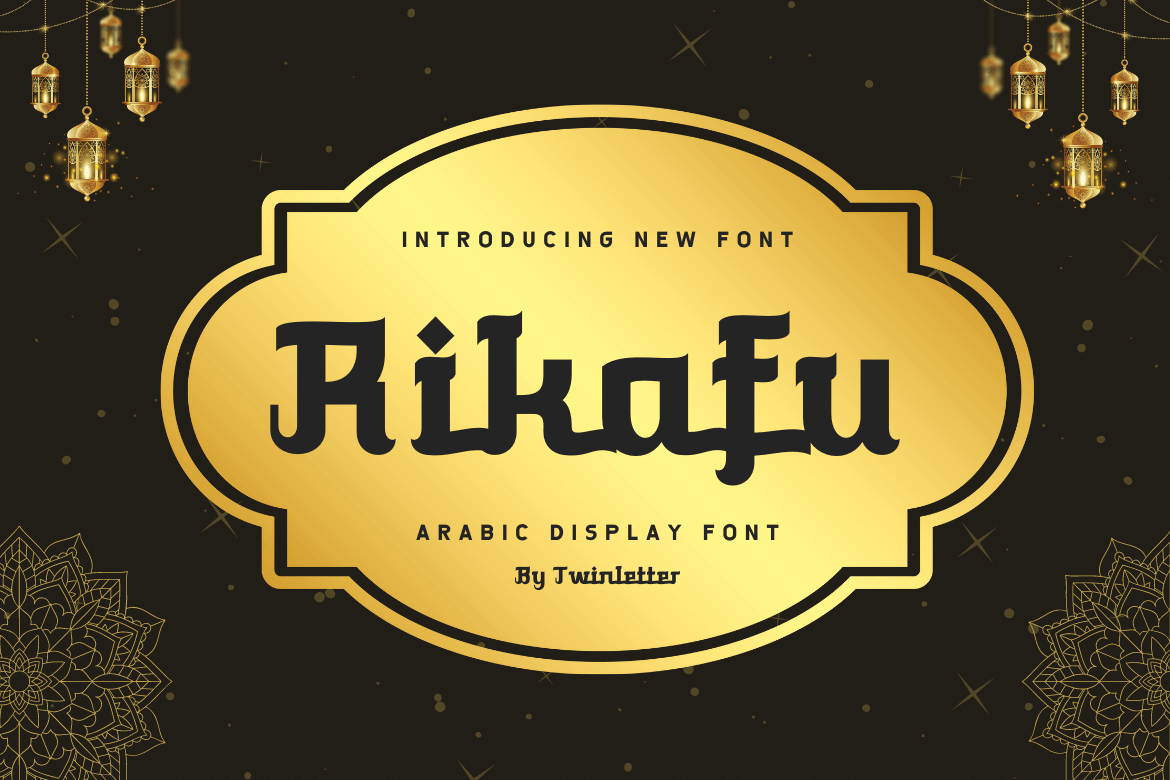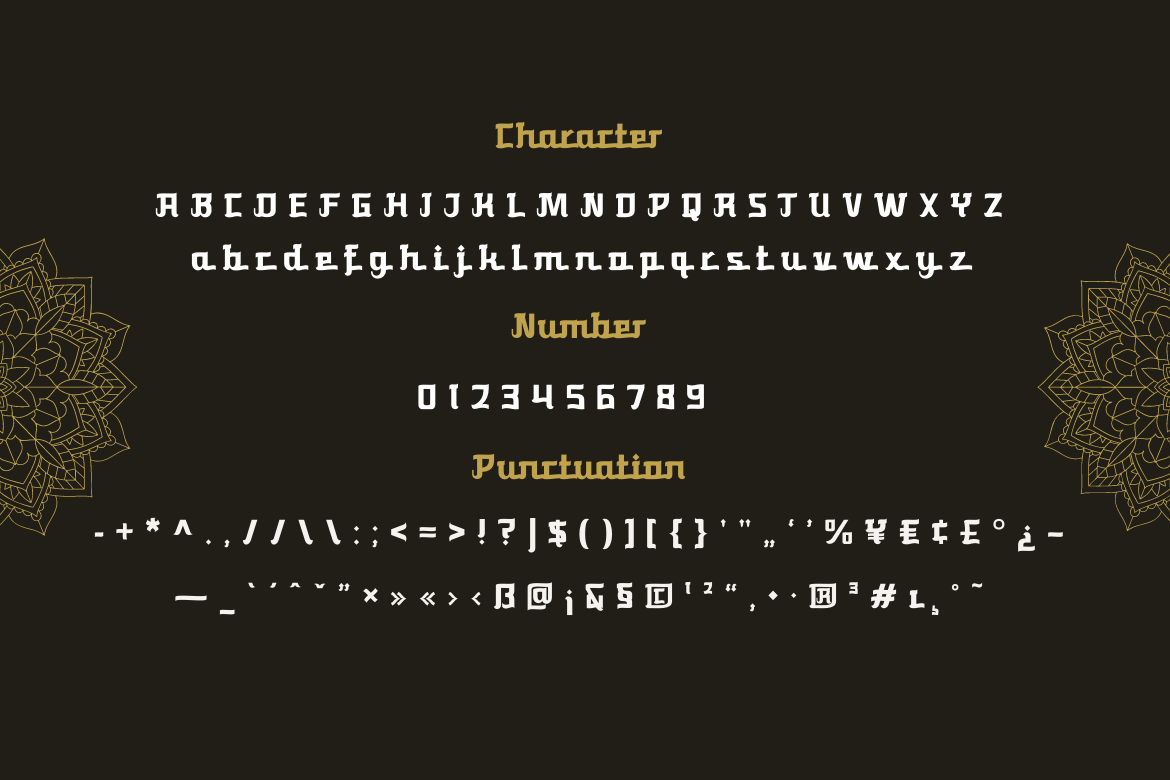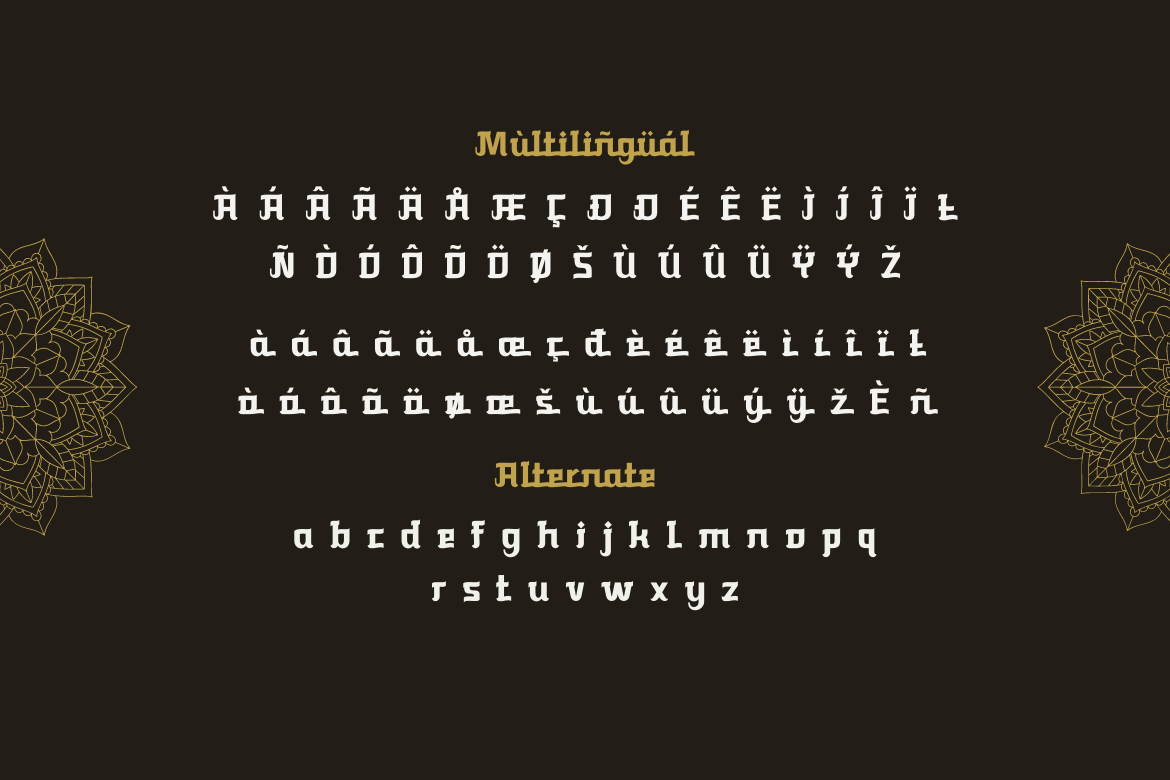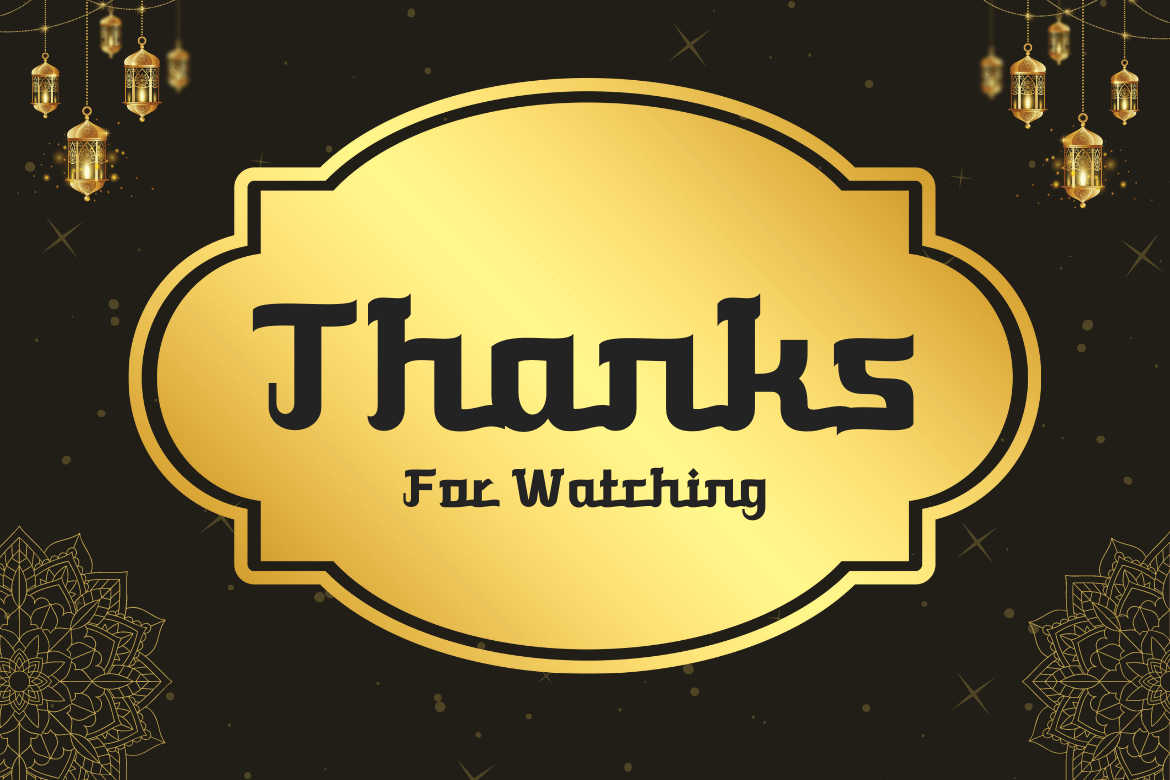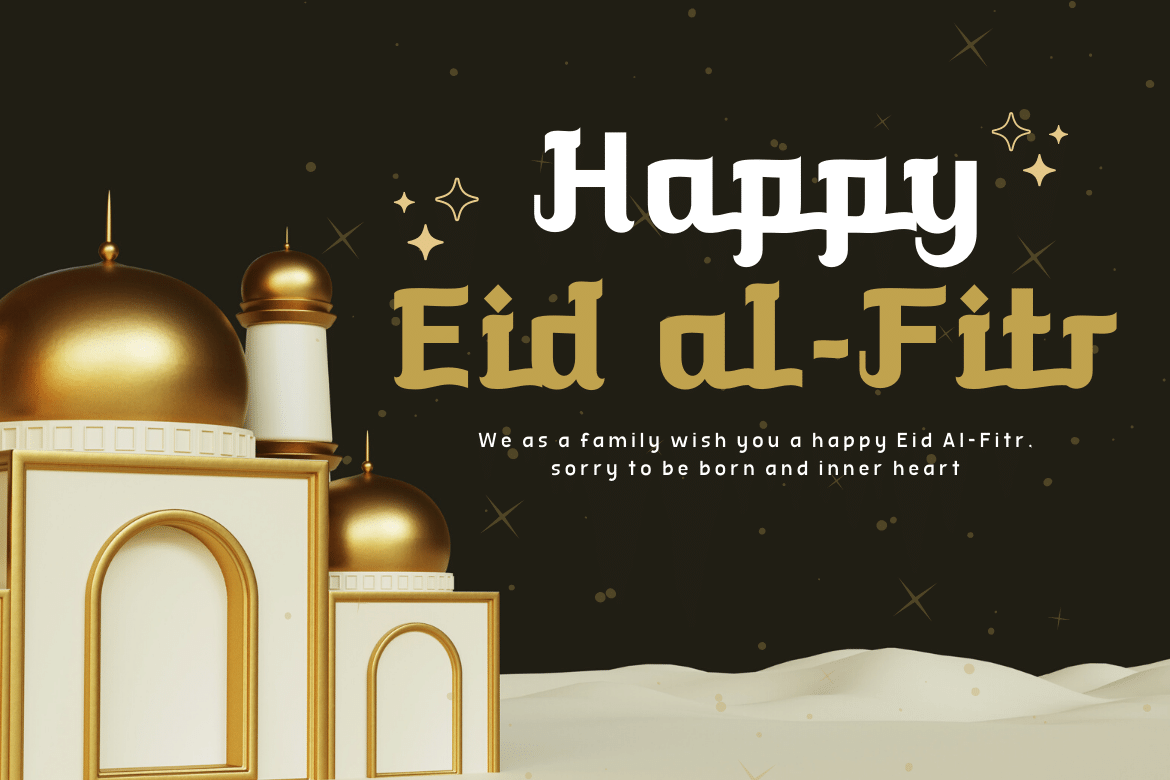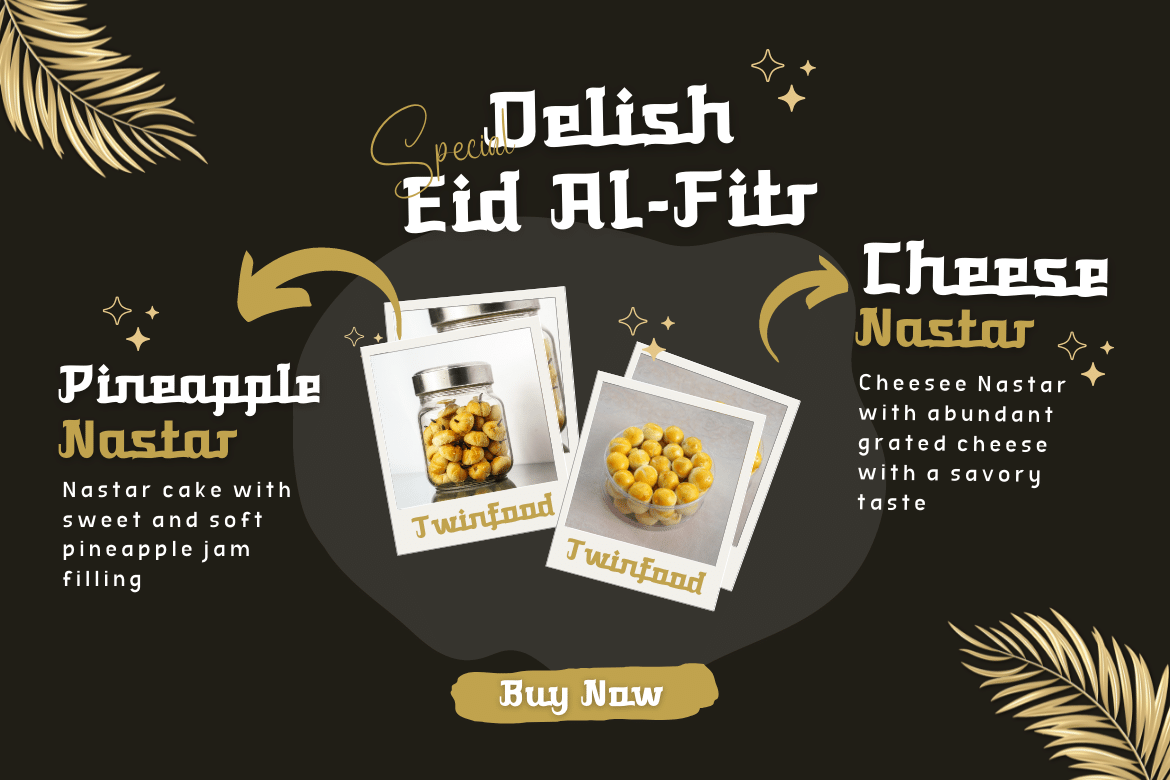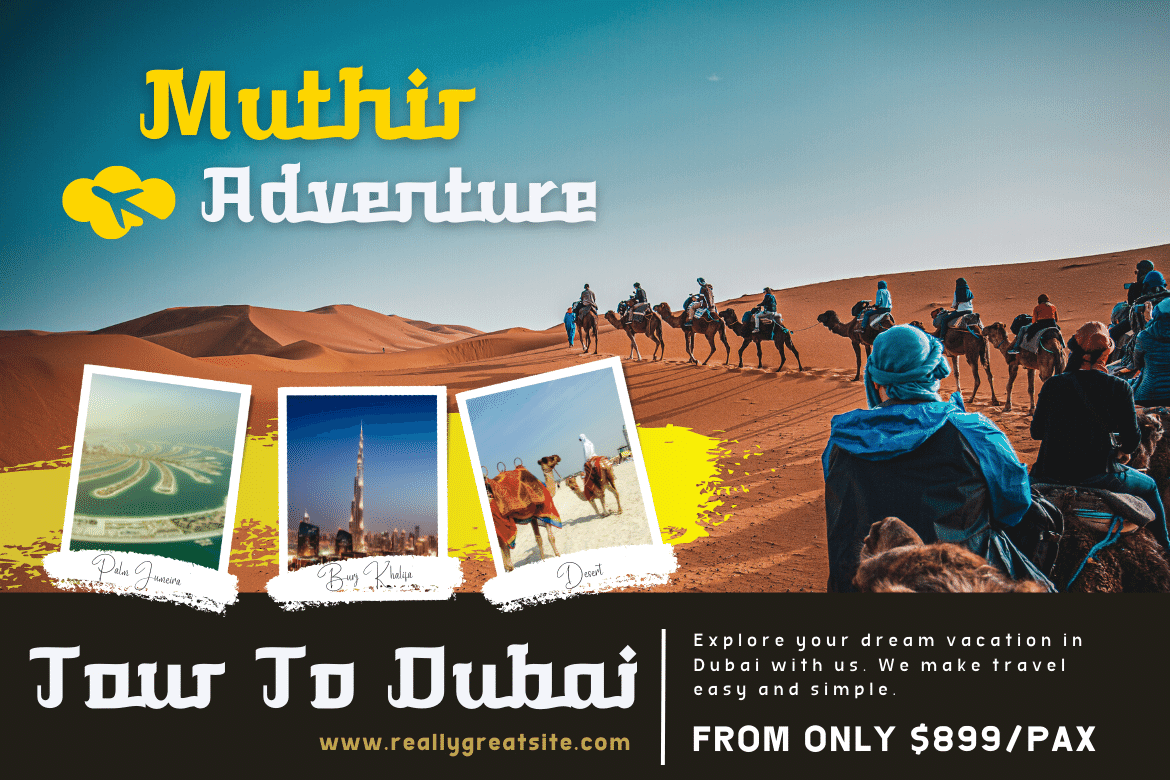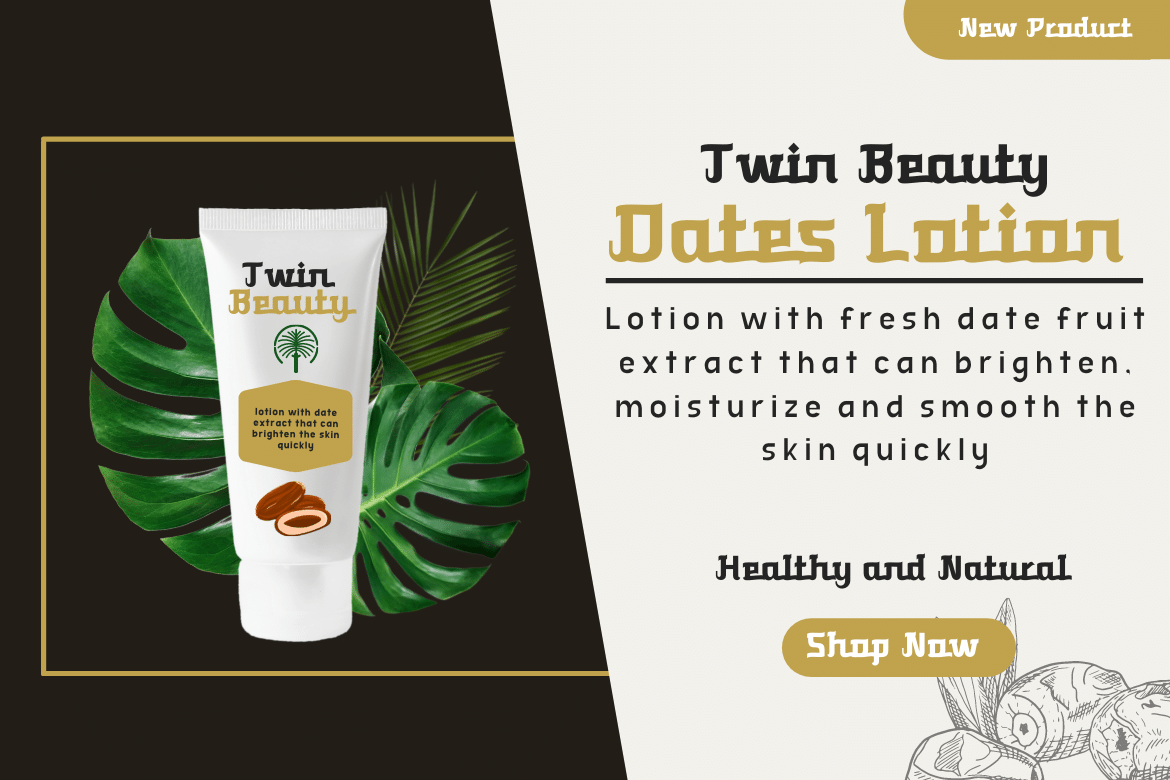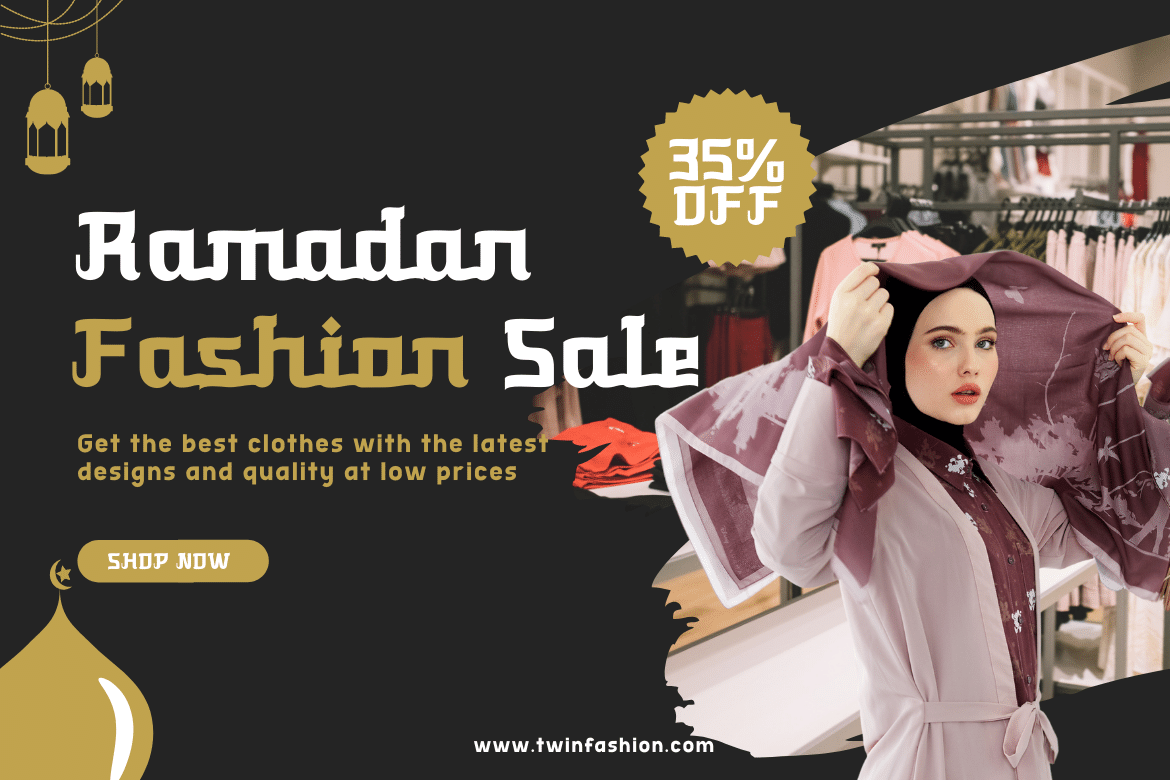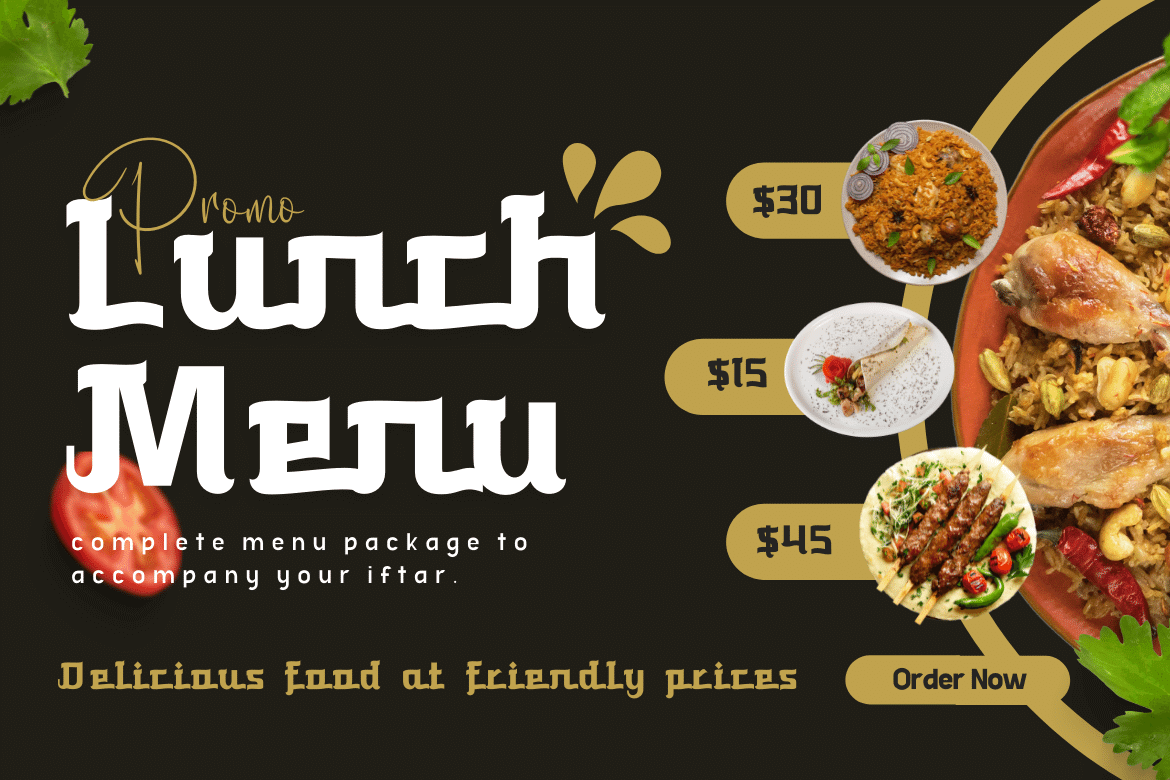
Rikafu
Introducing Rikafu Arabic font.
Create beautiful Arabic and Islamic ornament designs using this exclusive font. All characters and alternates are beautifully styled. With this stunning font going for a stunning display, you’re sure to add a classic touch of elegance to your projects while presenting them in a variety of styles from modern to classic. This Arabic Style font will be your ultimate tool in creating high-end and luxurious designs.